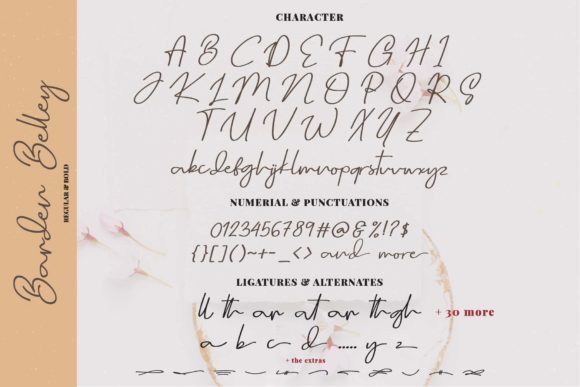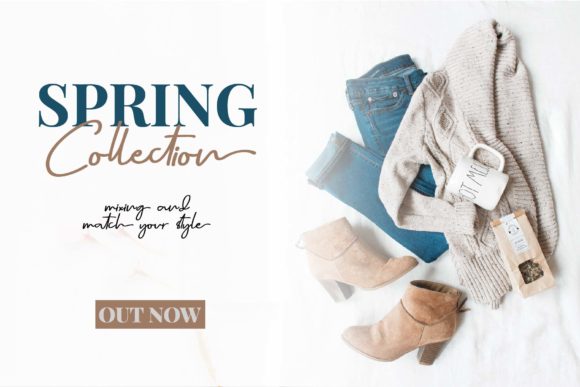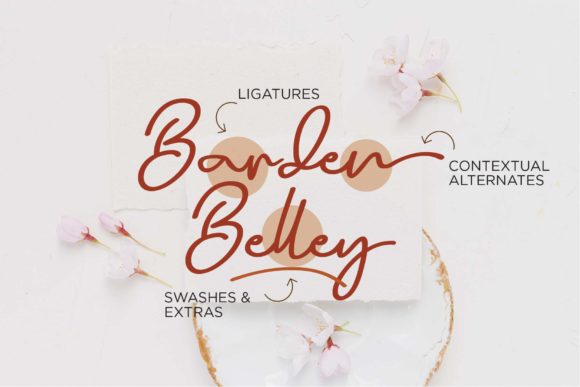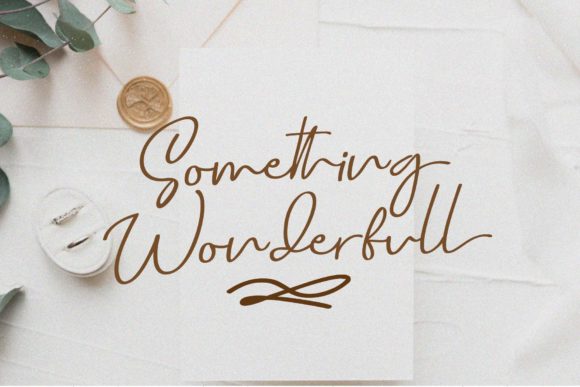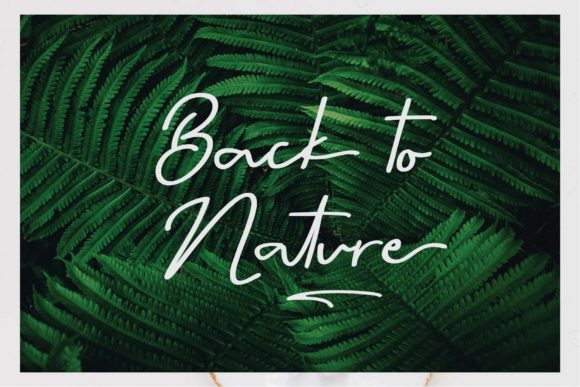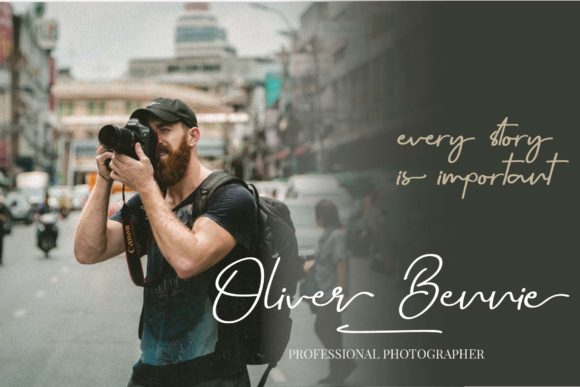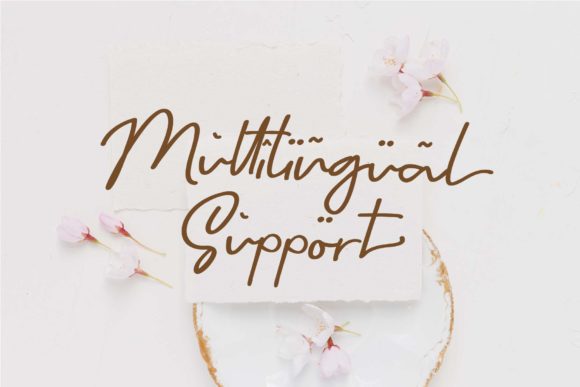
Barden Belley Font
About Barden Belley Font
Barden Belley is a beautiful script font. It comes in 4 styles and it is perfect for quotes, labels, logos, signatures, packaging design, magazines and much more!